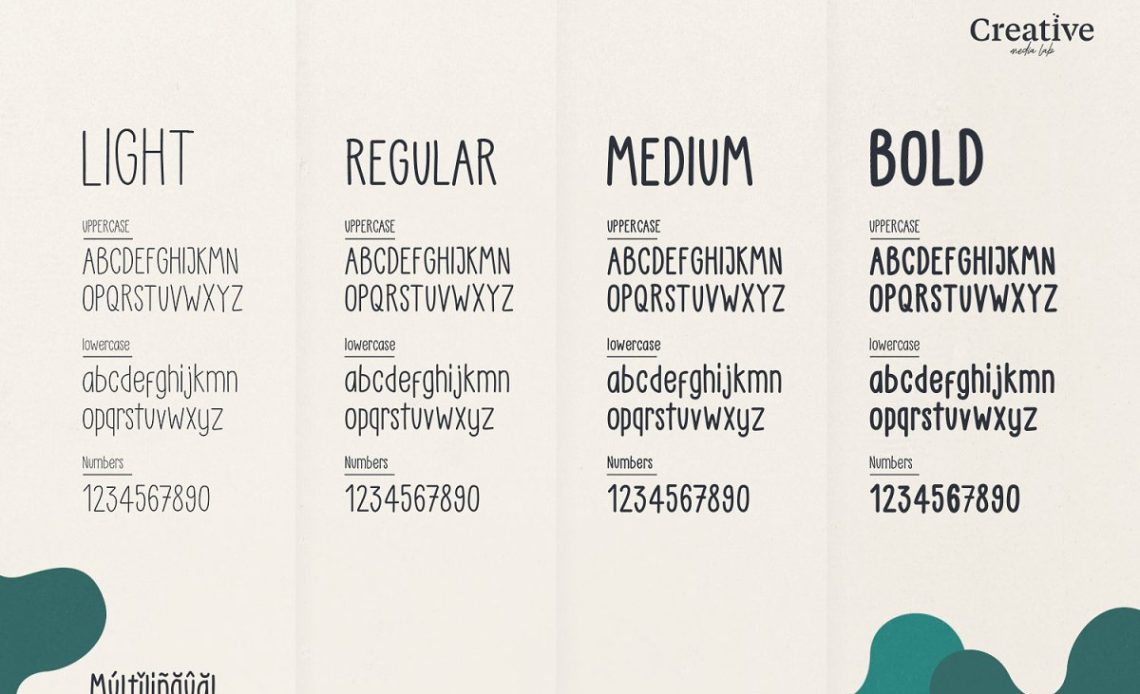
Looking for the best font for comic lettering? Look no further than Little Pea - Handwritten Font! Created by the talented team at Creative Media Lab, this font is the perfect choice for anyone looking to add a touch of fun and happiness to their designs.
Featuring a cute and charming handwritten style, Little Pea is the ideal choice for a wide range of projects. Whether you're creating comic books, greeting cards, toys, posters, baby clothing, picture books, or anything else that requires a fun and lighthearted look, this font has you covered.
With four different weights to choose from - light, regular, medium, and bold - you can easily customize Little Pea to suit your specific needs. And no matter which weight you choose, you can be sure that your designs will look great and stand out from the crowd.
So why choose Little Pea over other handwritten fonts? For starters, it's incredibly versatile and can be used in a wide range of design projects. But more than that, Little Pea is a font that brings a sense of joy and playfulness to everything it touches.
If you want your designs to capture the attention of your audience and bring a smile to their faces, Little Pea is the font for you. So why wait? Download Little Pea - Handwritten Font today and start adding a touch of fun and happiness to all your design projects!